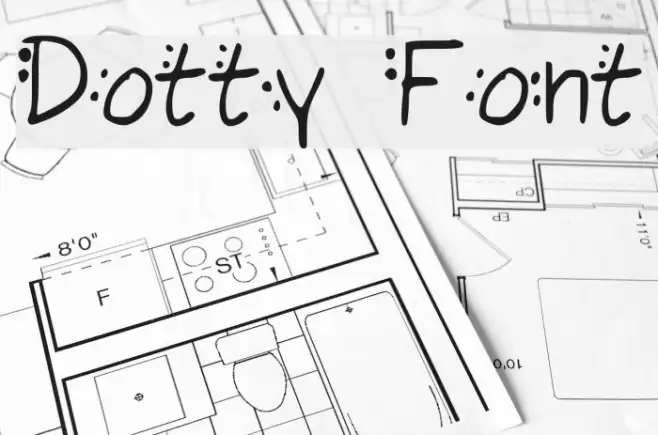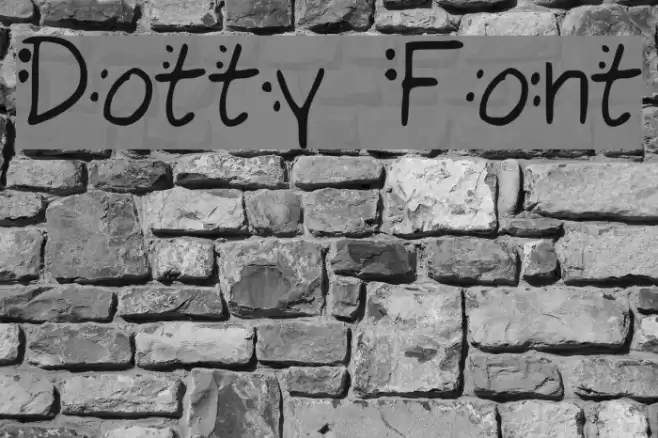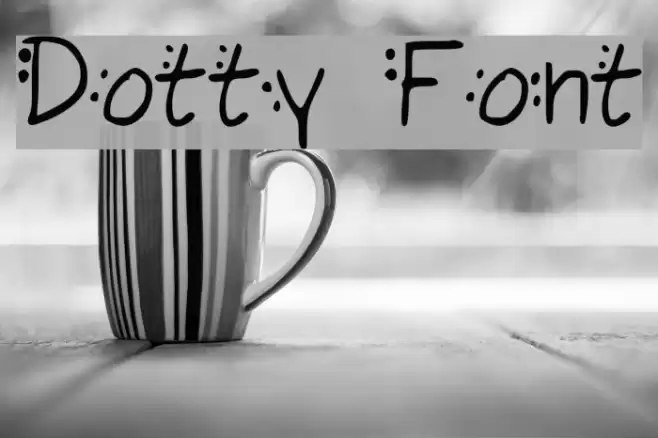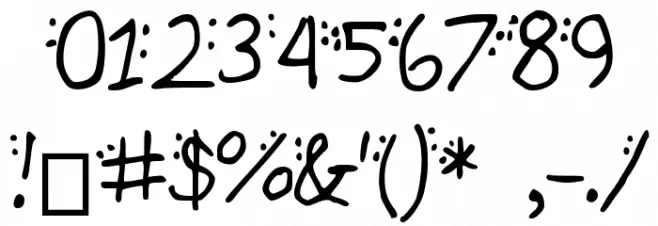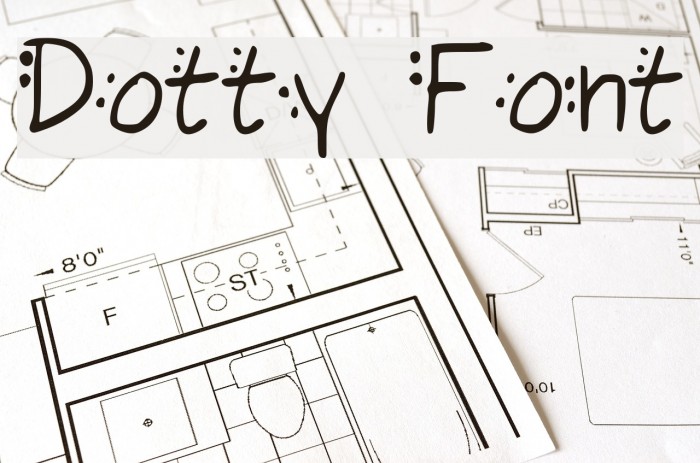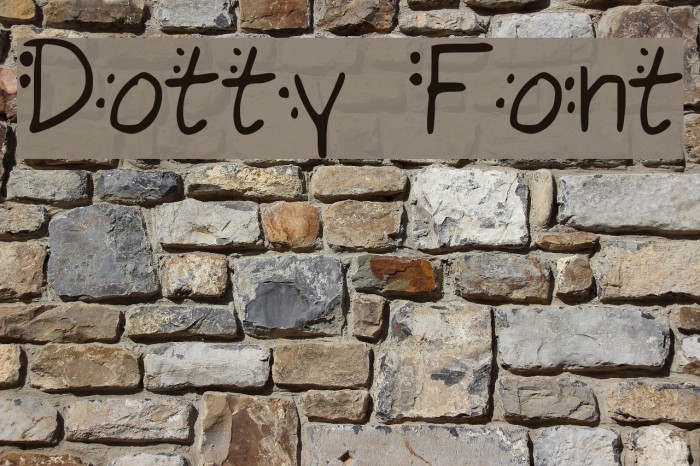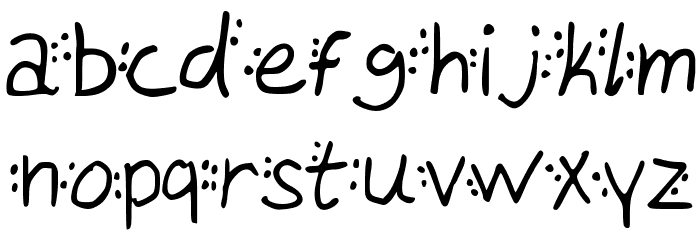
Dotty Font
Dotty Description
This playful and whimsical font features a unique dotted design integrated into each character, giving it a lively and fun appearance. The letters are slightly irregular, enhancing its hand-drawn feel, while maintaining readability. The dots add a decorative element that makes the font stand out, perfect for creative projects. The characters are evenly spaced, ensuring clarity and balance. This font is ideal for projects that require a touch of creativity and fun, such as children's books, playful branding, or artistic posters.
A playful, dotted font with a whimsical, hand-drawn style from Uncategorized fonts.
- Proposed Projects: Children's books, playful branding, artistic posters, creative invitations.
- Overall Style: Whimsical, Playful